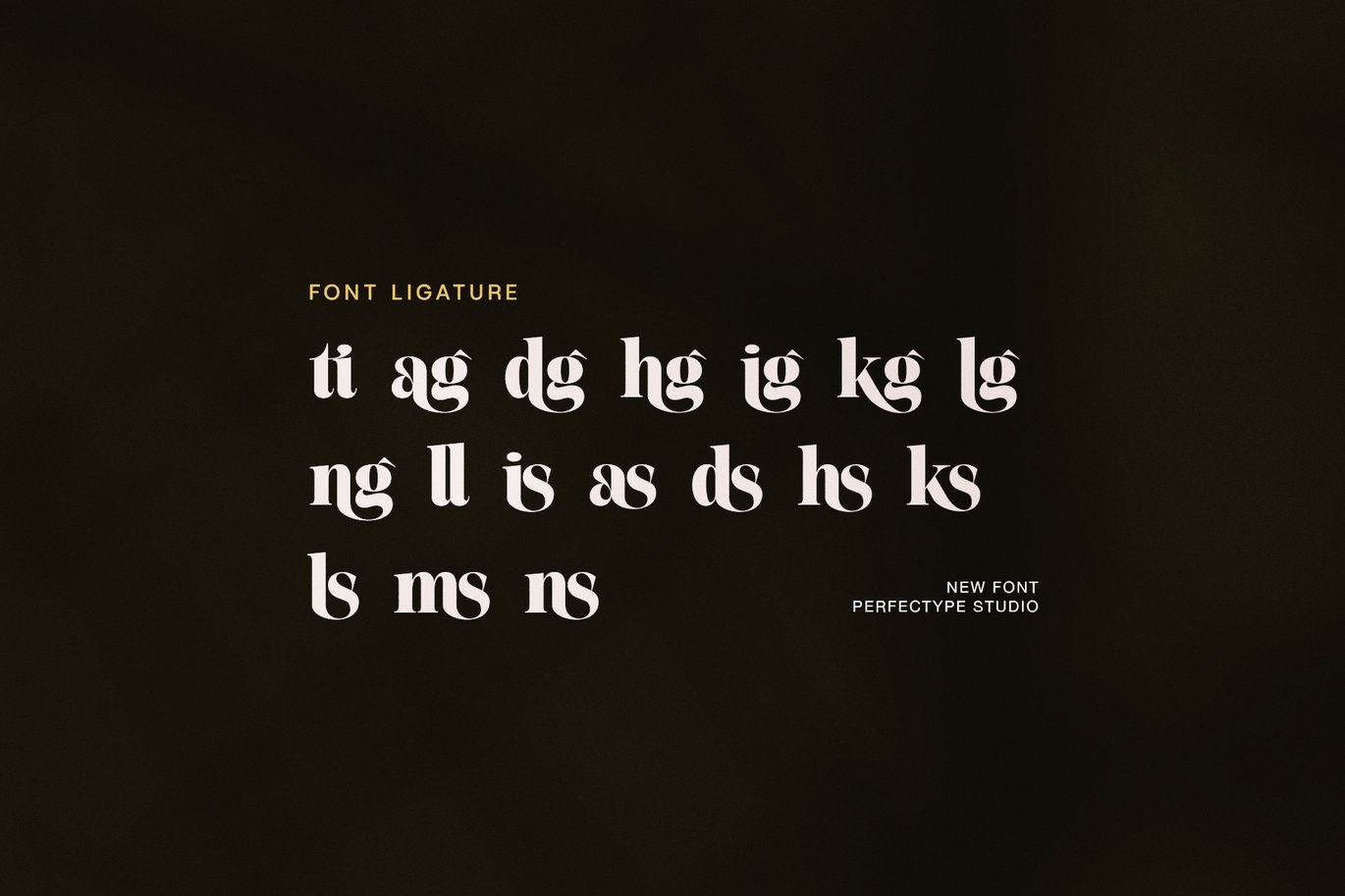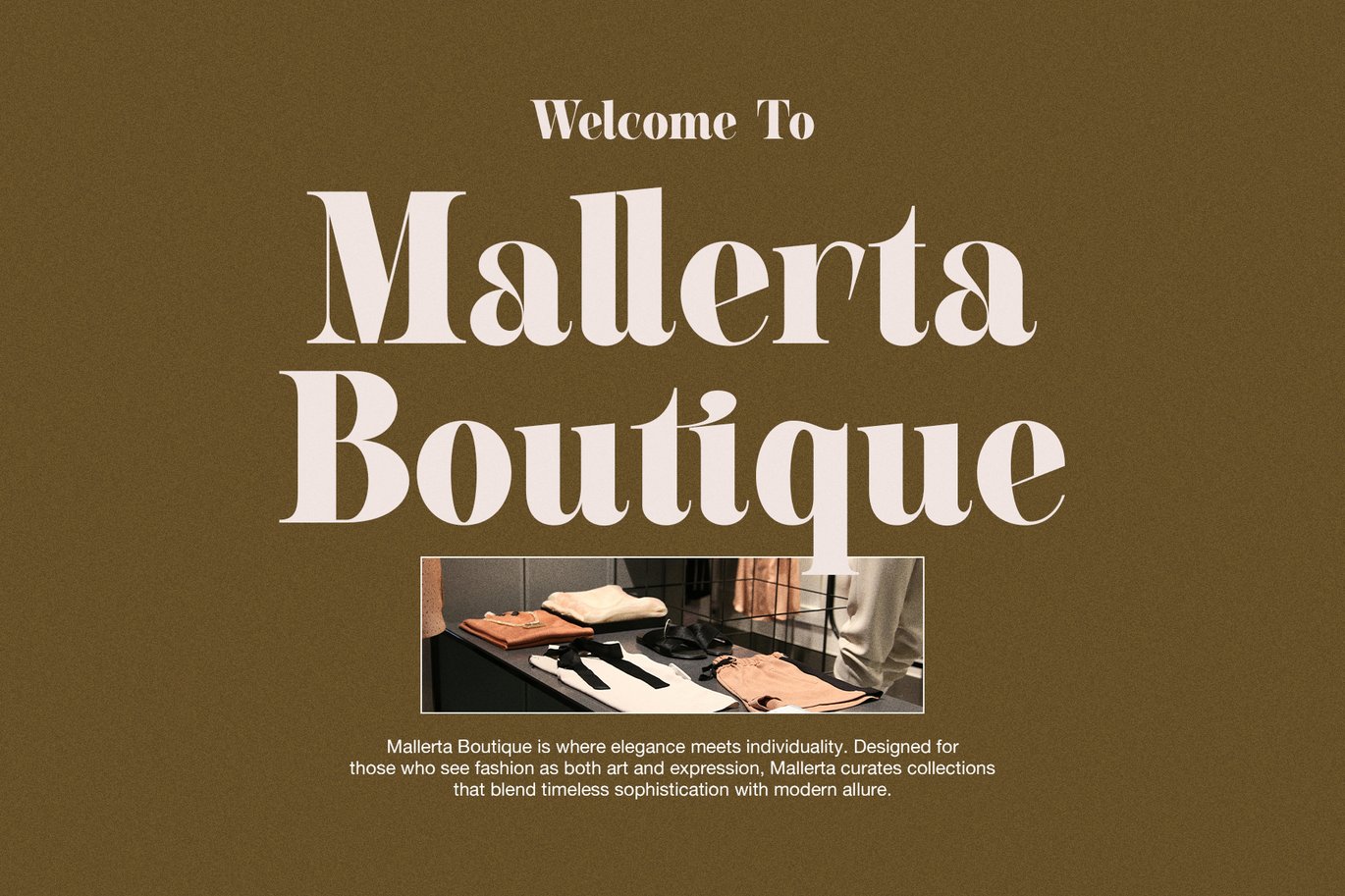
Maling Elegant Serif Font
Maling Elegant Serif Font is a versatile typeface ideal for various projects, including logos, branding, posters, blog headers, advertisements. The free version includes a full set of uppercase and lowercase letters, available in OTF format.